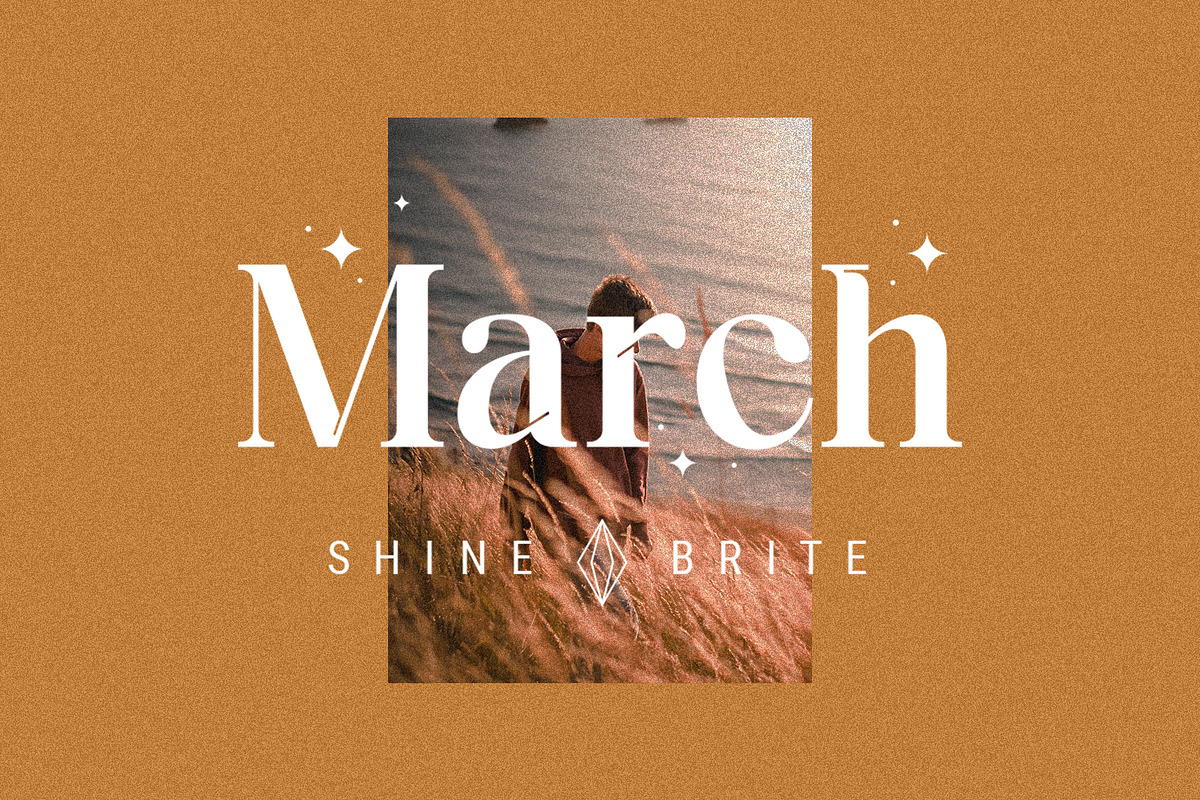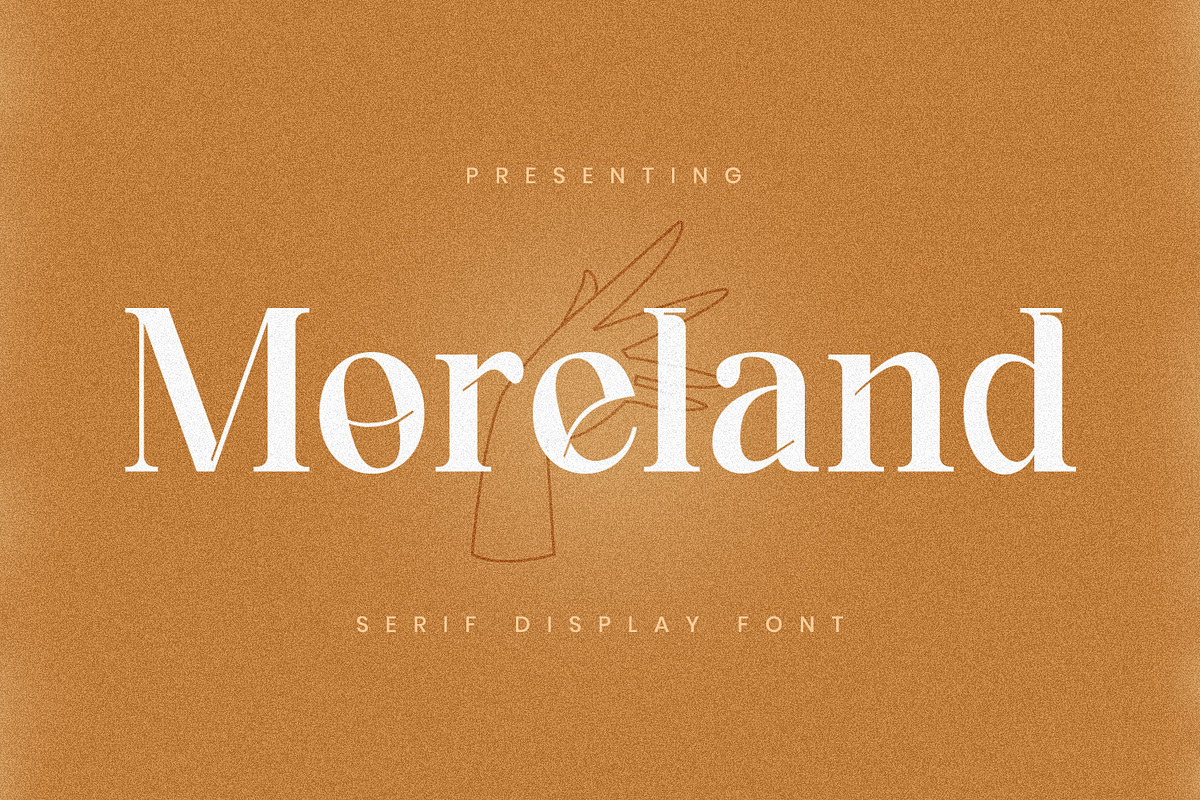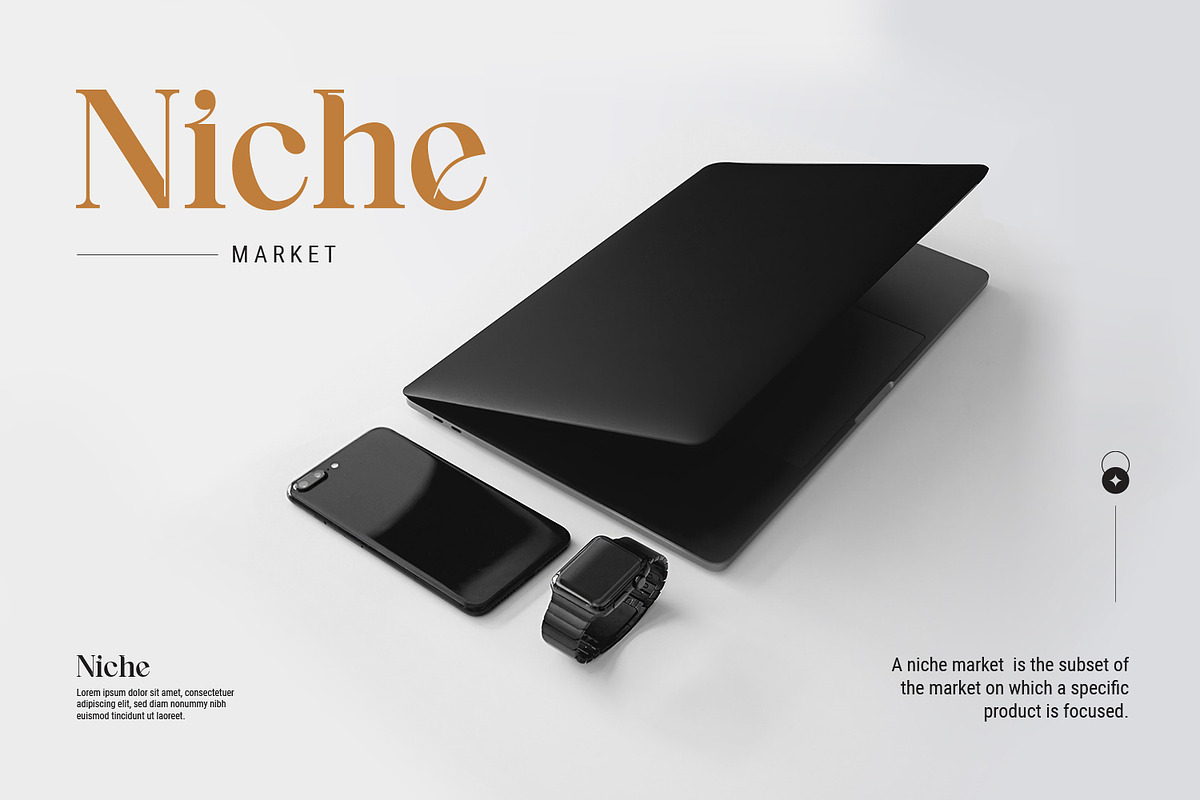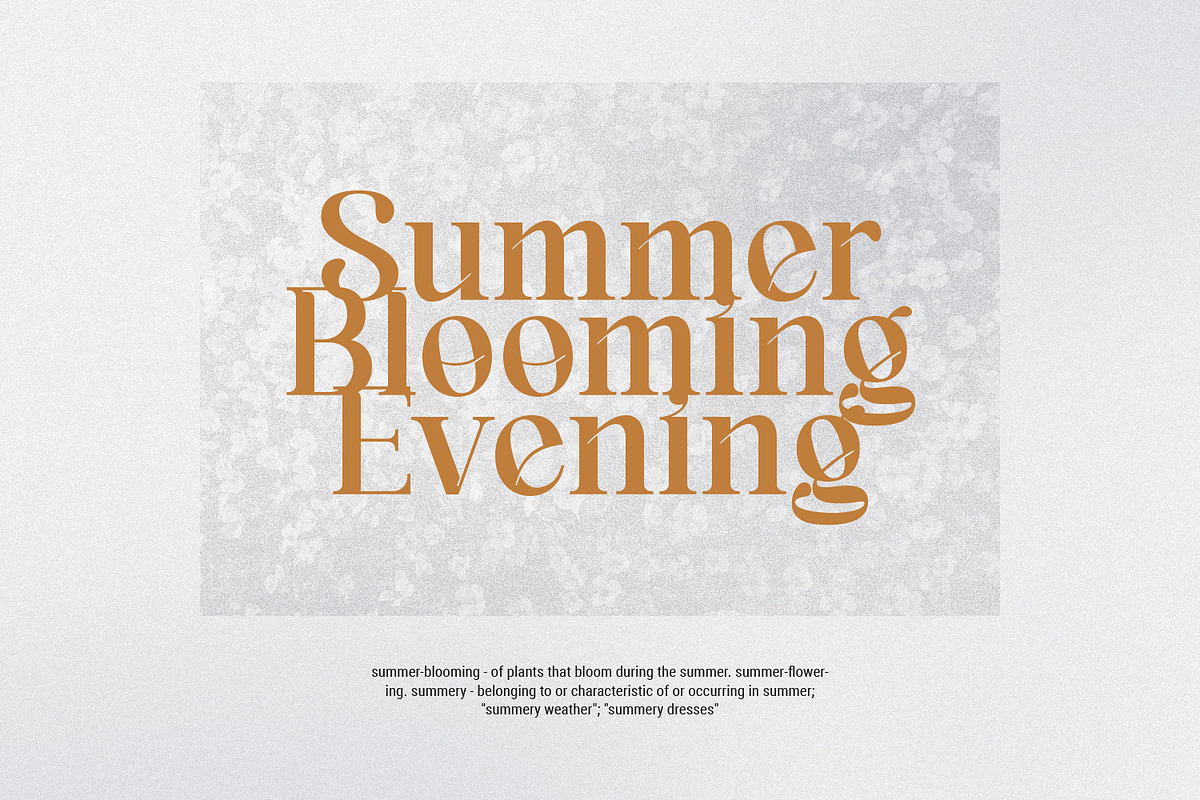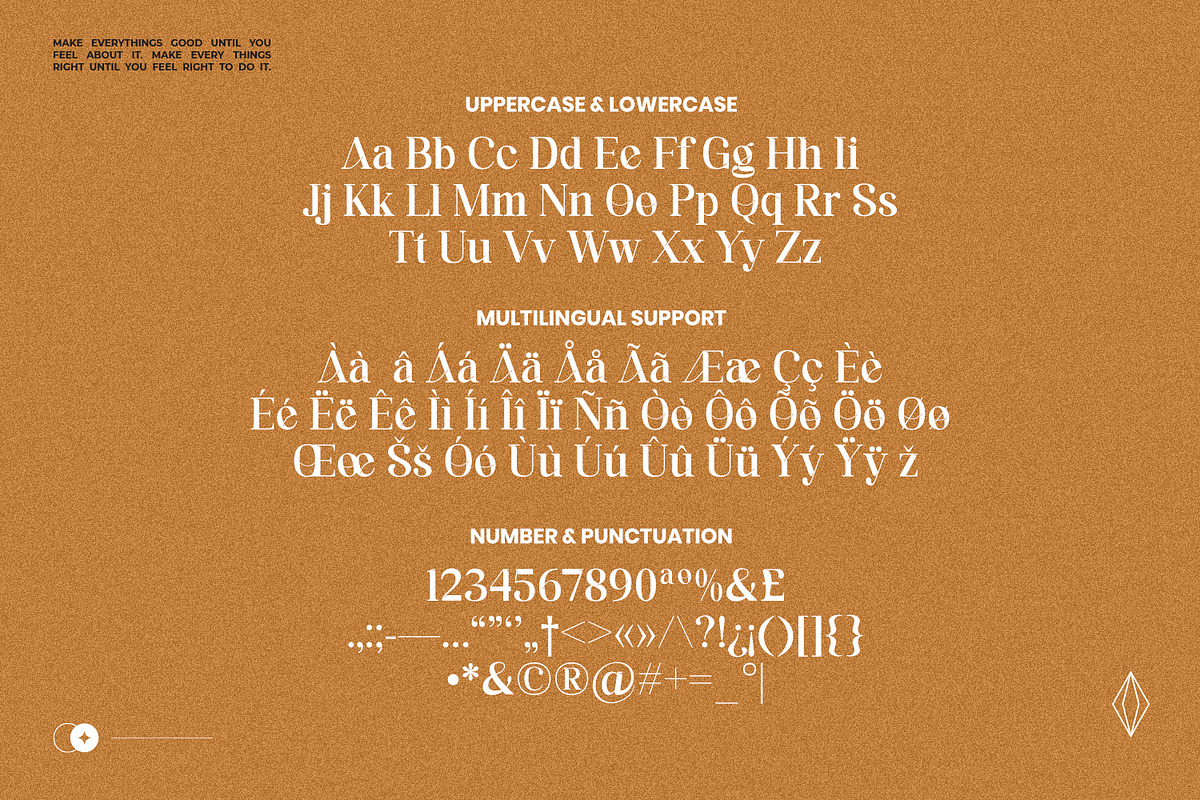
Moreland
Moreland a luxury serif font look with simple, clean and visual elegance with smooth curves and beautiful ligatures.
A very versatile font that works in both large and small sizes. This font is suitable for a wide variety of projects such as headlines, logos, labels, branding projects, magazines, homeware designs, product packaging, mugs, quotes, posters and more.
- Punctuation, Number and Symbol
- Multilingual Support ÀÁÂÃÄÅÆÇÈÉÊËÌÍÎÏÐÑÒÓÔÕÖØÙÚÛÜÝ